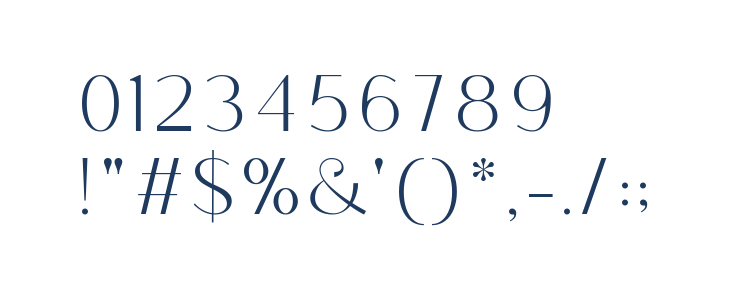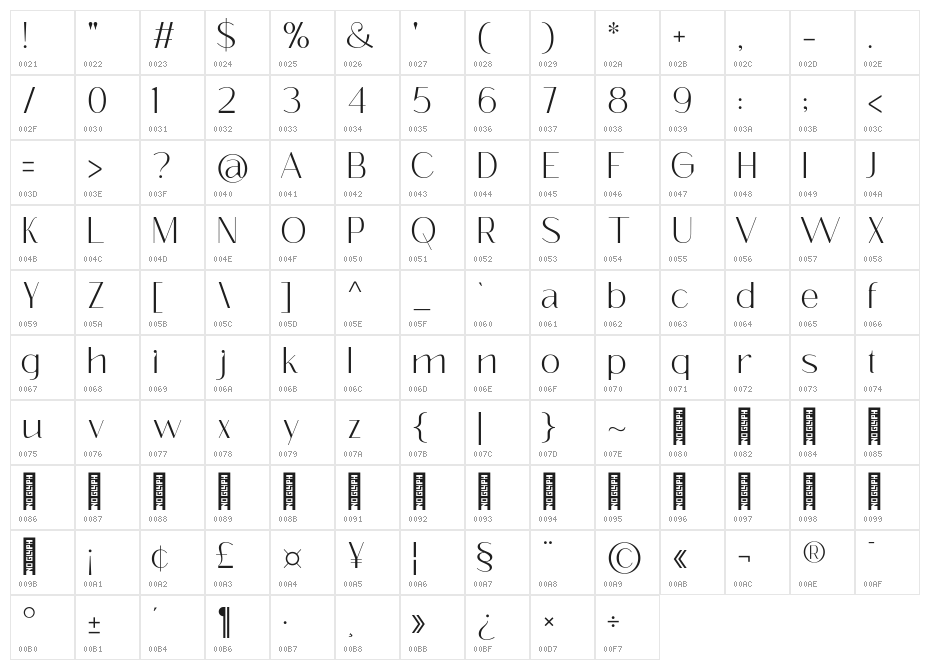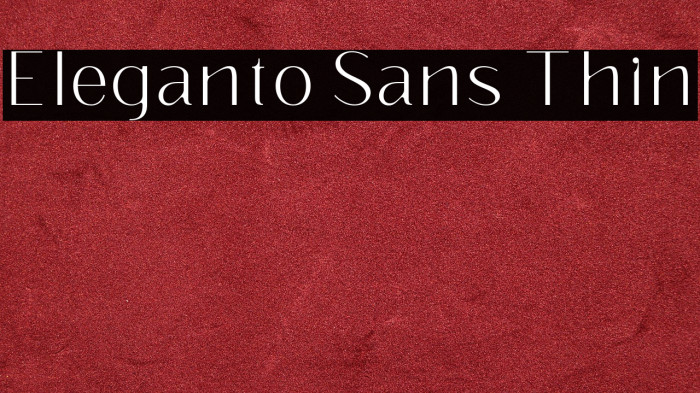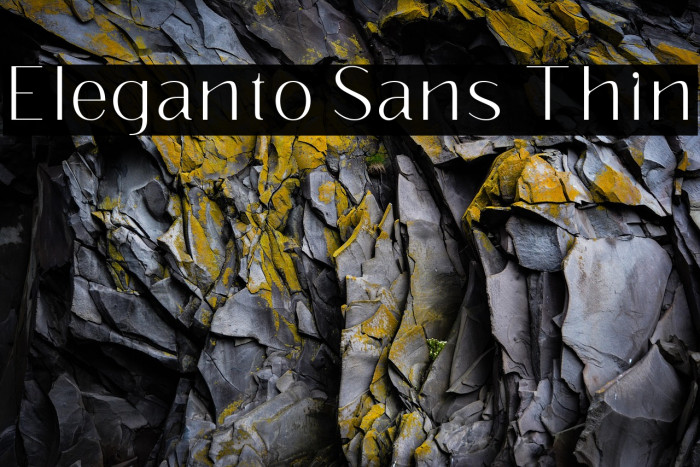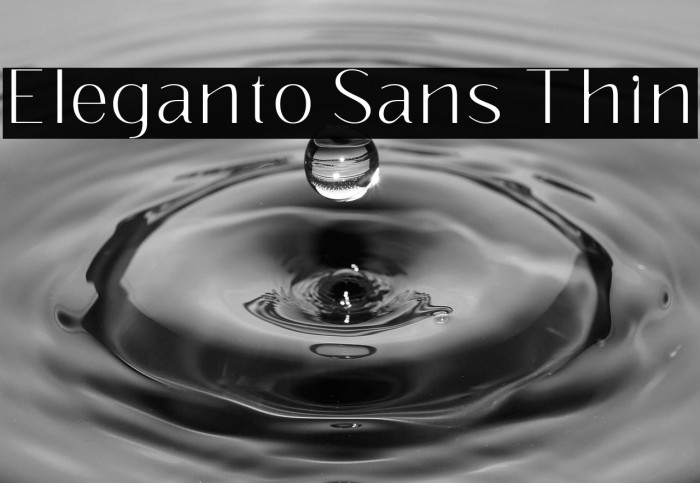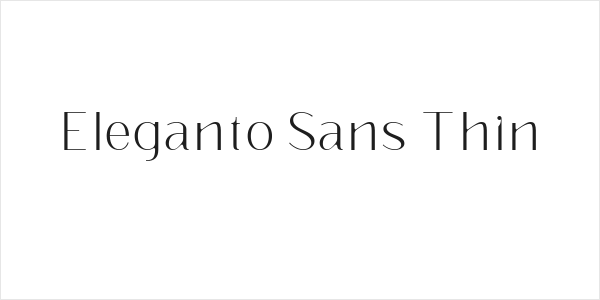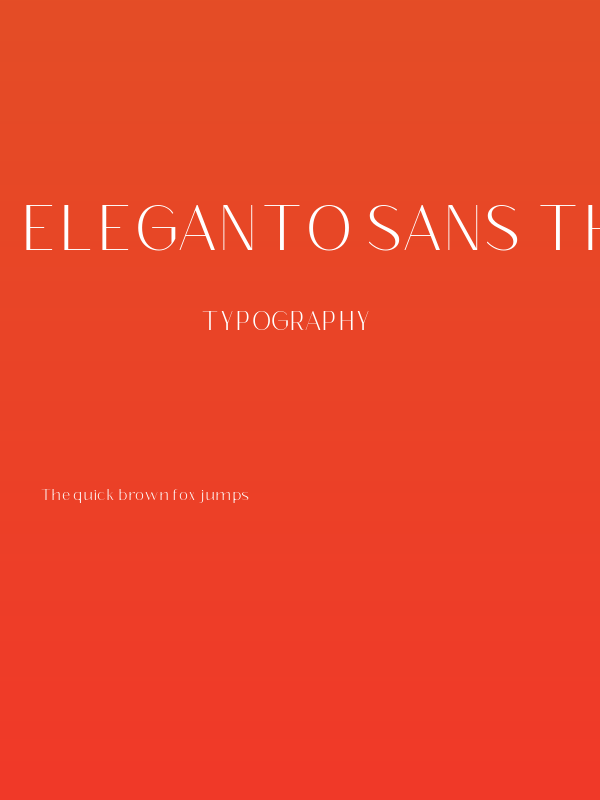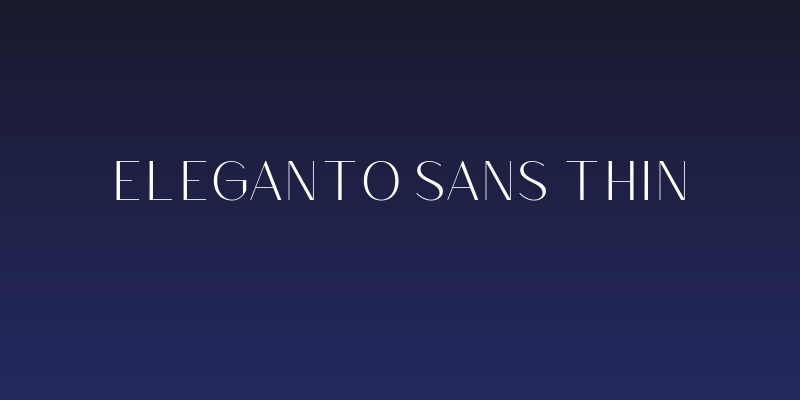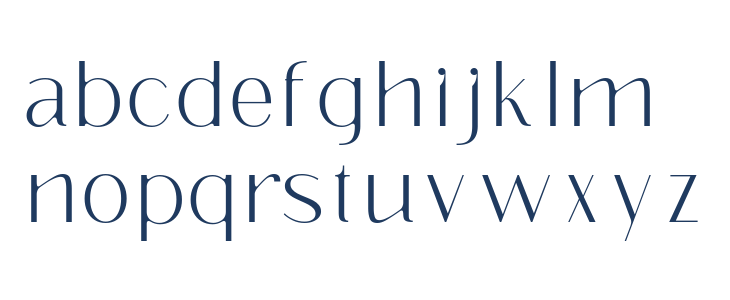
This typeface exudes a refined elegance with its thin, elongated strokes and minimalist design. The characters are crafted with precision, featuring clean lines and a modern aesthetic. The uppercase letters are tall and slender, while the lowercase letters maintain a consistent flow with subtle curves. The numerals are distinct and align well with the overall style, providing clarity and sophistication. Special characters are thoughtfully designed, maintaining the font's sleek appearance. The overall impression is one of understated luxury, making it suitable for high-end branding and editorial use.